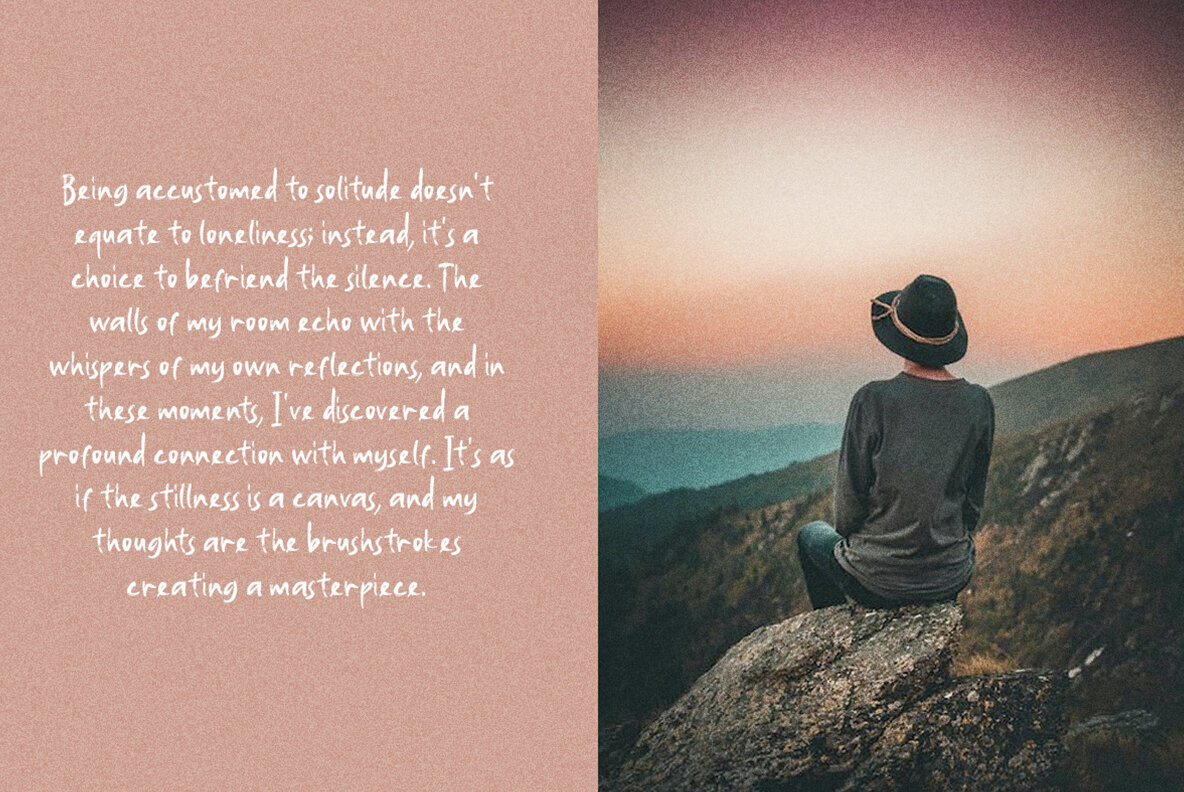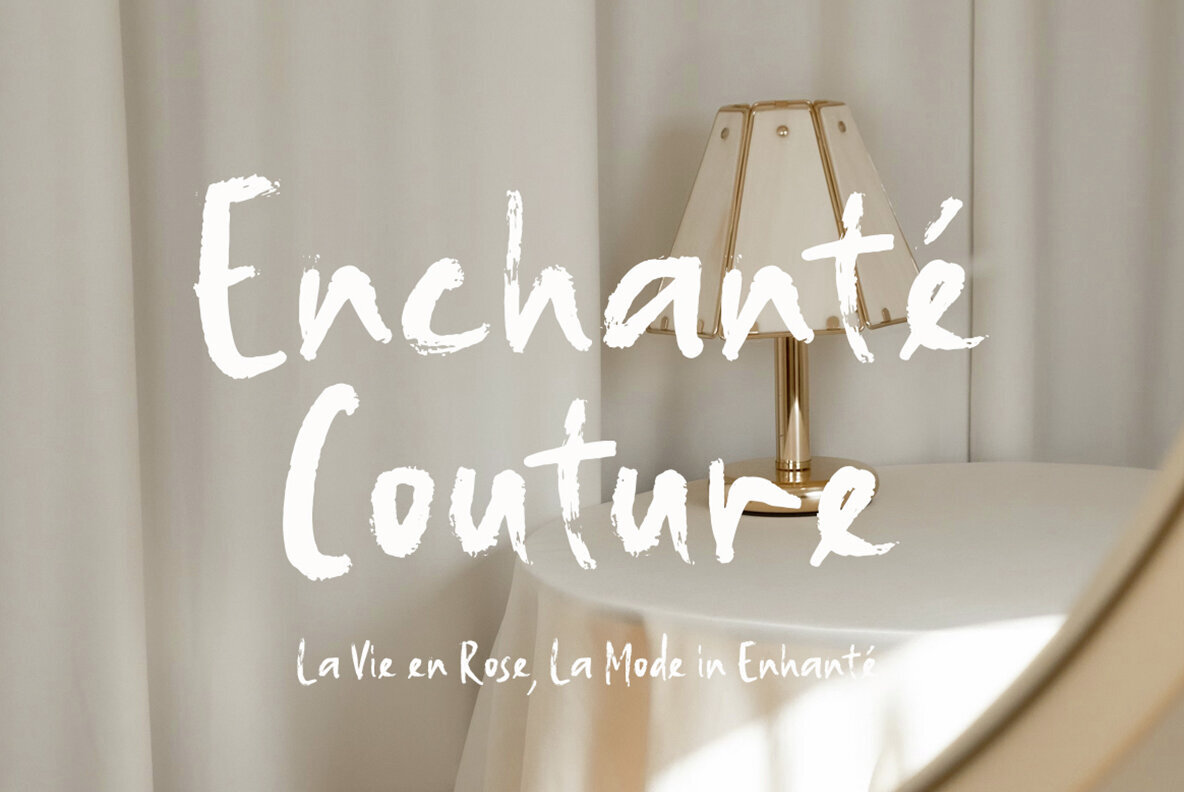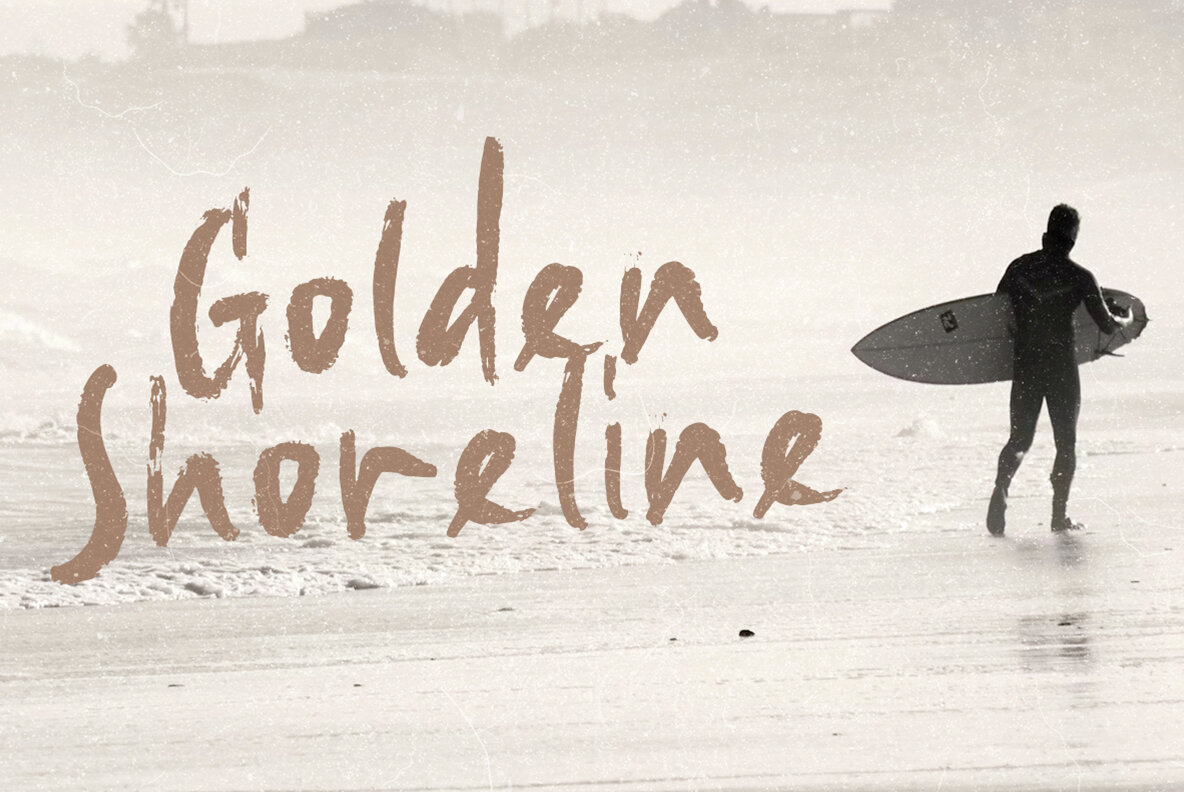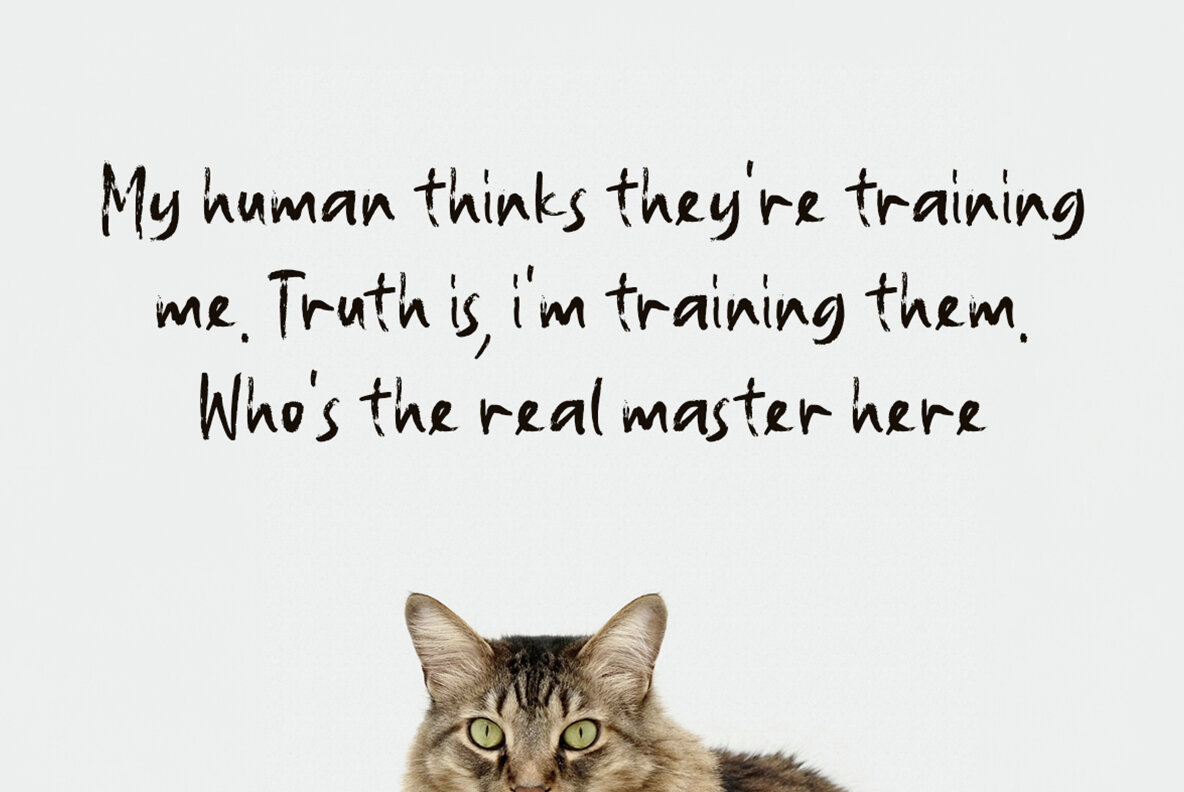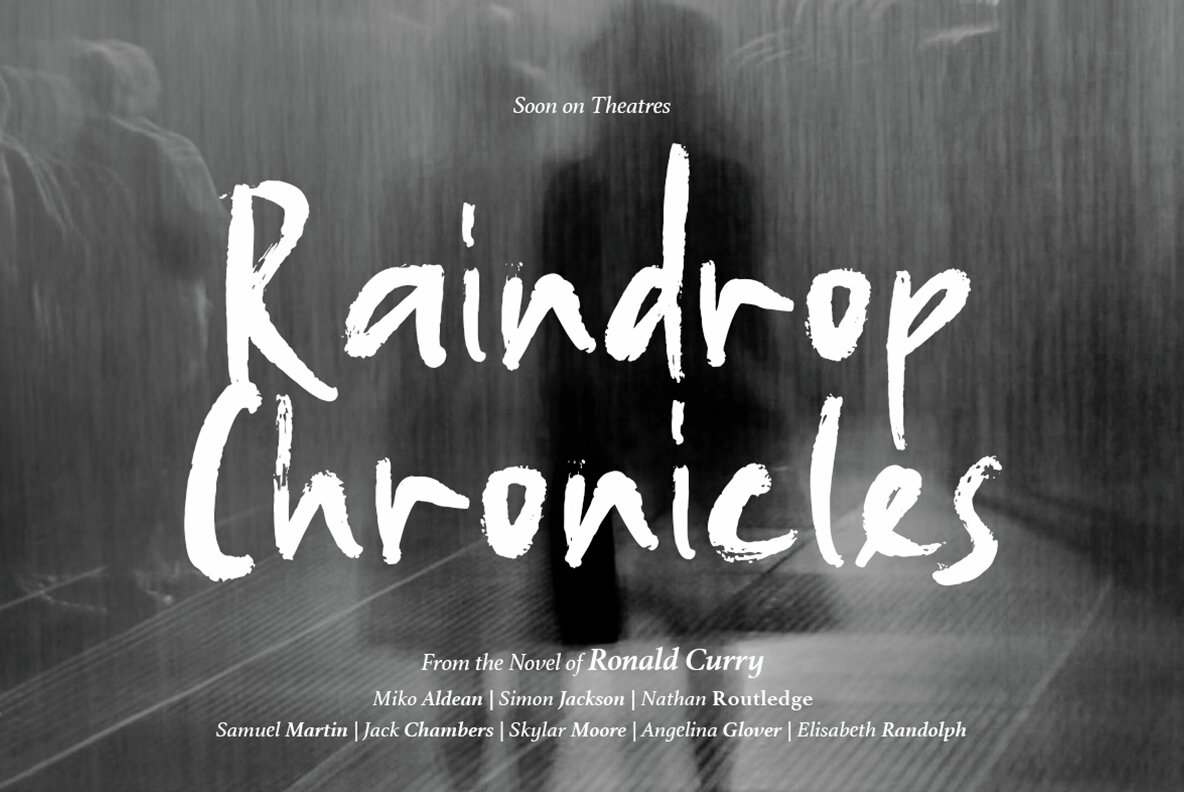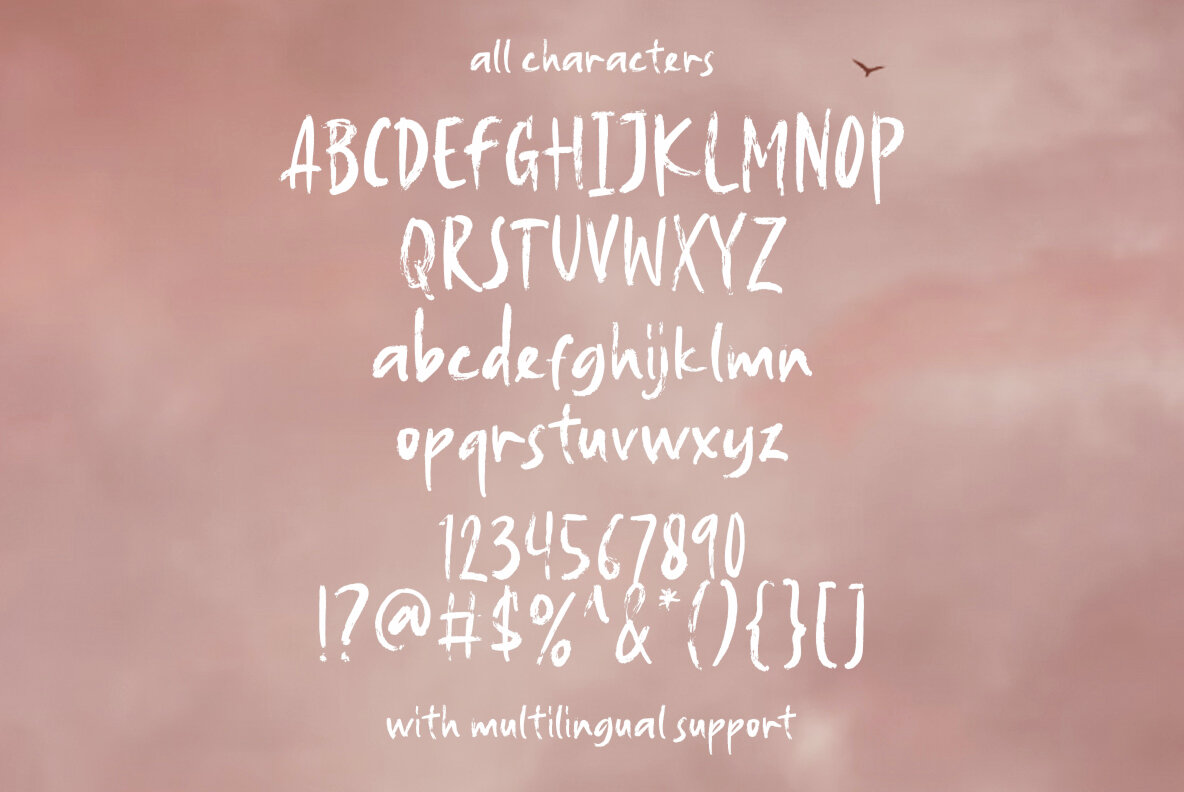
Unforgiven Dreams Font
Unforgiven Dreams Regular
"Unforgiven Dreams" is not just a font; it's an artistic journey into the world of handwritten brush script. This font embodies the spirit of untamed creativity, with each stroke telling a story of dreams unbound. Perfectly capturing the essence of free-spirited expression, this font adds a touch of raw authenticity to your designs. Crafted with precision, "Unforgiven Dreams" brings a unique blend of elegance and boldness. Whether you're creating eye-catching posters, expressive quotes, or adding a personal touch to your projects, this font is your companion in making a statement. Let your creativity flow, and let "Unforgiven Dreams" transform your designs into a canvas of unrestricted imagination.